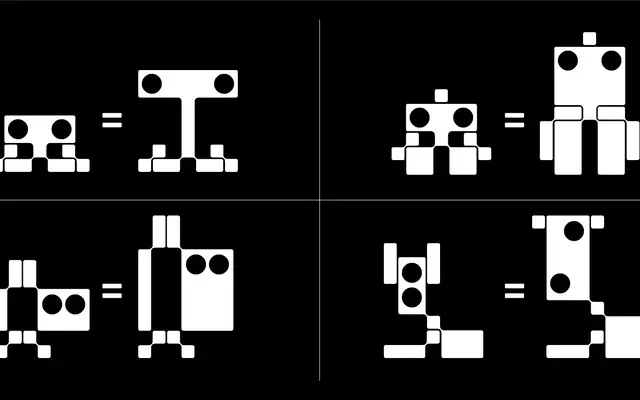
BD MicronRobots
Type Different · 2019
A variable dingbat font containing 52 micro-robot characters that morph through five mutation stages via variable font axes.
Each of the 52 Micron characters is assigned to a standard Latin glyph slot, allowing the variable font's mutation axis to animate the robots through five distinct design states from their original form to a final mutated stage. The variable font technology drives the transformation between Muta1 and Muta5, making it functional as a motion or interactive design asset rather than a static set. Priced from $25 and released in 2019.
A variable dingbat font consisting entirely of pictorial micro-robot characters with no conventional letterforms; classified as display given its purely illustrative, non-typographic nature.